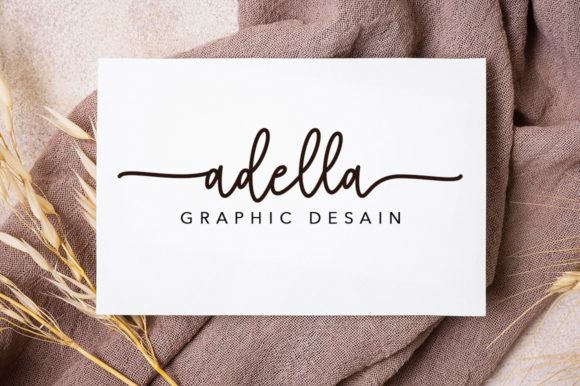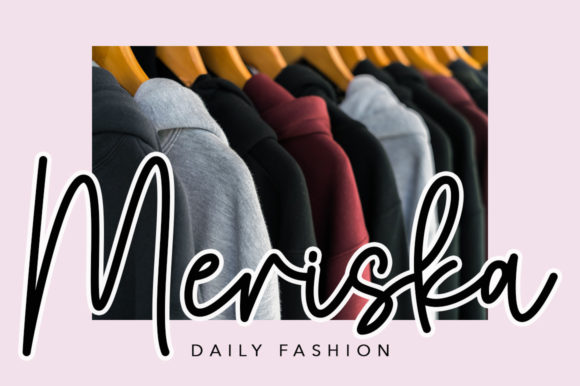
Pink Candy Font
db-ku.com - Script & Handwritten -- Pink Candy is an elegant script font. Not too thin and not too thick, balanced and varied, this font was designed to enhance the beauty of your projects. Pink Candy is PUA encoded which means you can access all of the glyphs and swashes with ease!